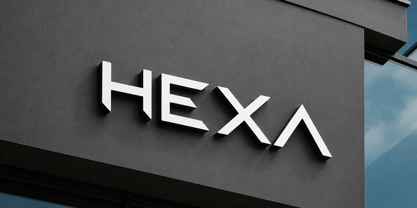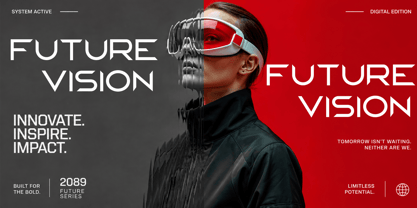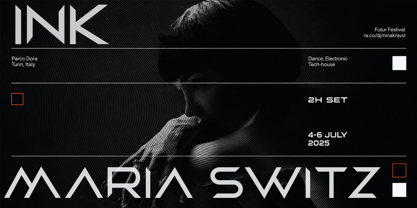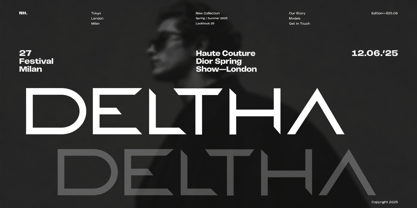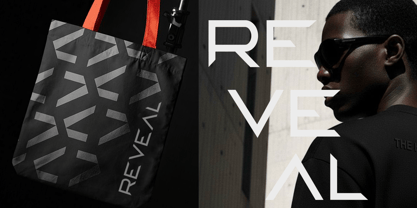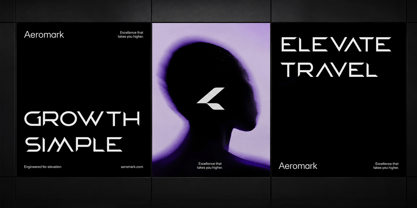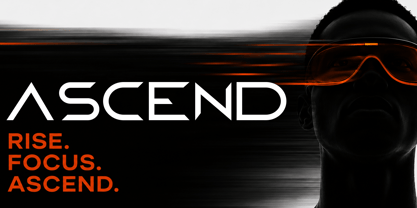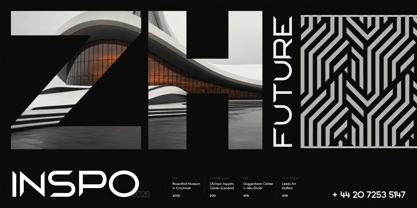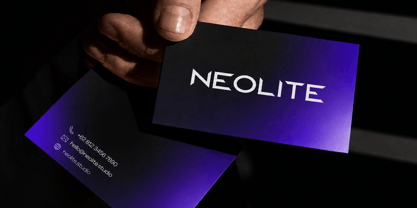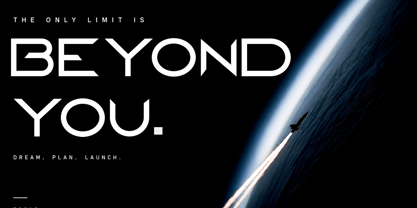
Deltha
Deltha is a bold geometric sans-serif display typeface built for brands that want to feel sharp, modern, and unmistakably futuristic.
Defined by angular cuts, diagonal terminals, and confident uppercase forms, Deltha brings a technical, architectural edge to headlines, logotypes, and large-scale display work.
Its clean geometric structure keeps every letterform crisp at any size, making it equally at home on a minimalist tech wordmark, a streetwear tote bag, a fashion editorial cover, or a music festival poster.
Deltha was designed with branding and identity work in mind — the kind of typeface that anchors a logo, dominates a hero section, or headlines a campaign without needing decoration.
Includes full uppercase character set optimized for display sizes 24pt and above.
Ideal Uses: Logo & branding design, wordmarks, tech and SaaS identity, fashion editorial headlines, sportswear and streetwear graphics, architecture and real estate branding, music/festival posters, packaging and tote/merch print, app and product launch campaigns.